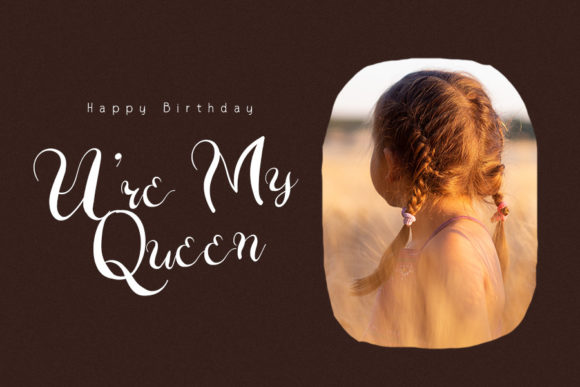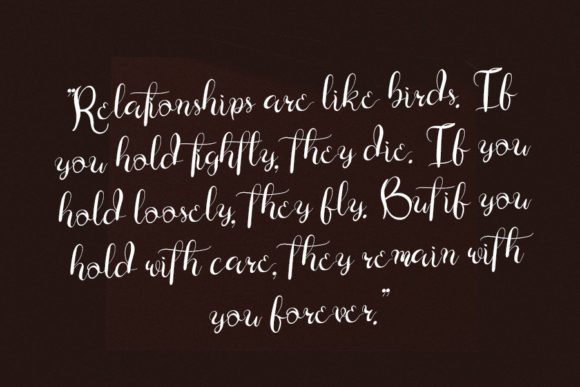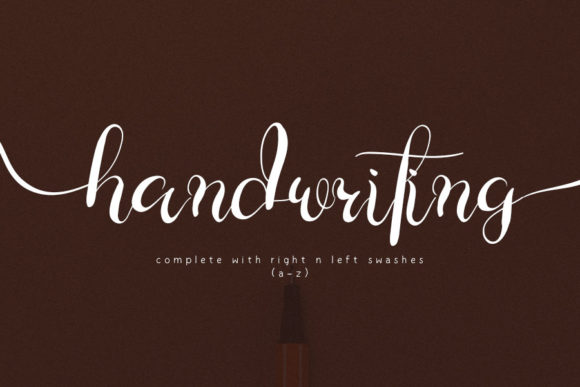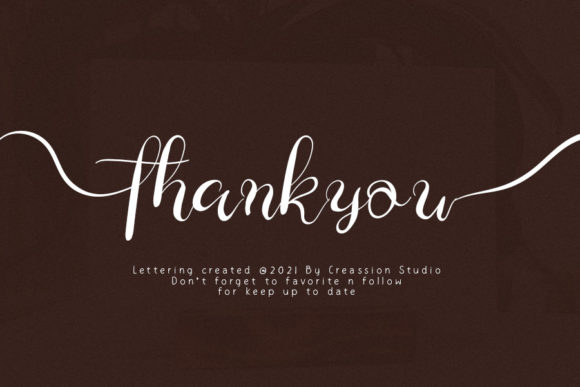
About Lettering Font
Lettering is an elegant handwritten font that will impress with its uniqueness. It is suitable for text logos, branding, greeting cards, wedding invitation cards, and more! This font is PUA encoded which means you can access all of the glyphs and swashes with ease!